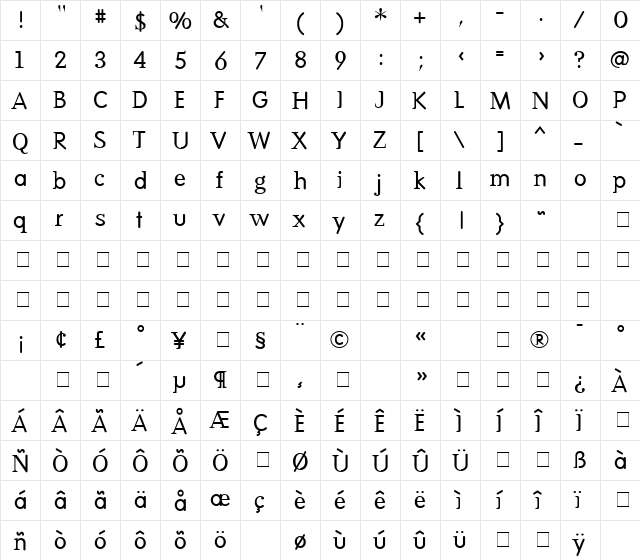
DeadHistoryRoman Regular
Design Context for DeadHistoryRoman Typeface
DeadHistoryRoman takes a measured approach to typography — its balanced proportions and neutral character make it a reliable workhorse for both digital and print work.